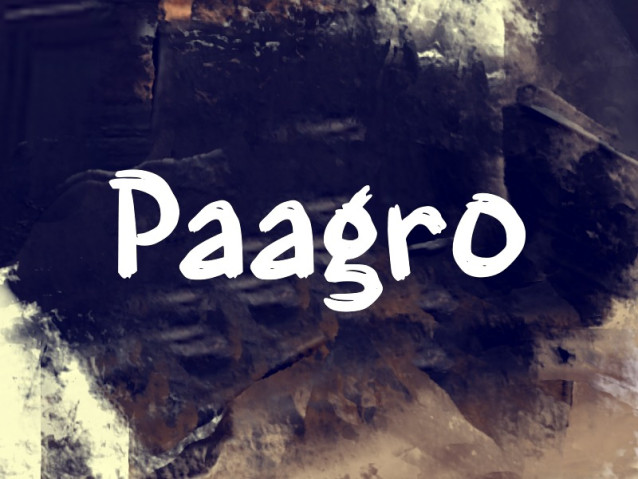
Paagro Font
Paagro Font The font conveys energy and personality, working especially well in designs that aim for a casual, emotional, or artistic tone. It stands out best at larger sizes, where the texture and brush details can be fully appreciated.